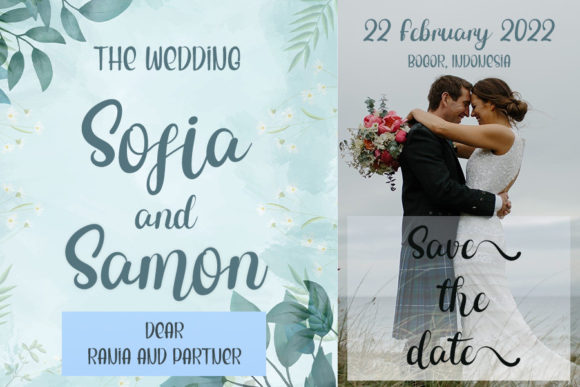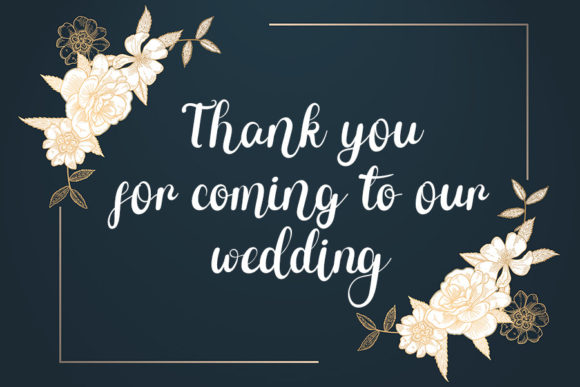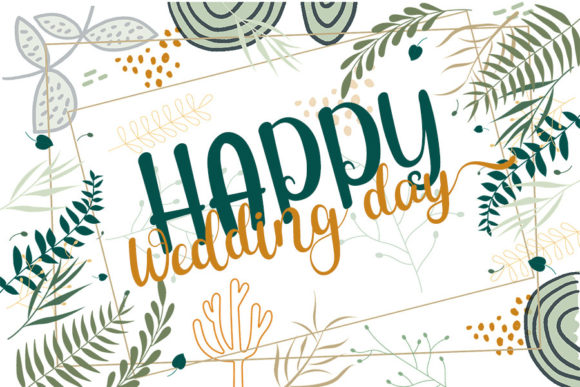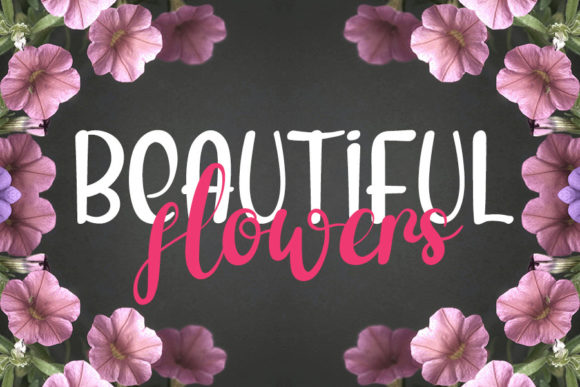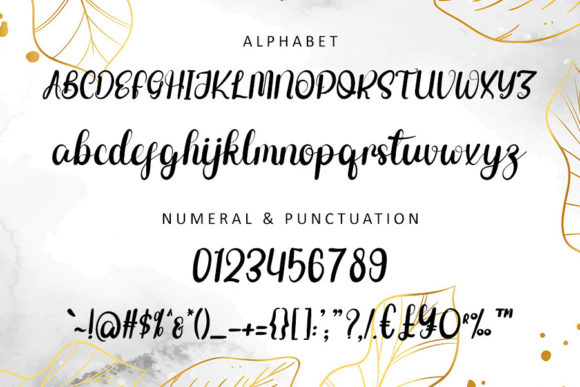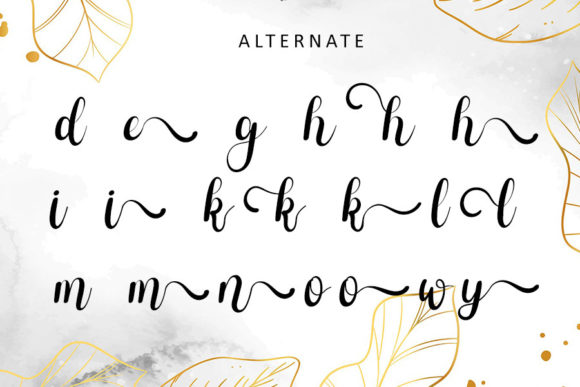
Cookies Handmade Font: Elevate Your Designs with a Touch of Timeless Elegance
In the world of typography, few fonts manage to capture the essence of classic calligraphy while still exuding a contemporary vibe. Cookies Handmade Font is one such gem that has been making waves in the design community. This stylish handwritten font is not just a typeface; it’s an experience that brings a touch of timeless elegance to your projects. In this article, we’ll dive deep into what makes Cookies Handmade Font a must-have for designers and crafters alike.
The Inspiration Behind Cookies Handmade Font
Cookies Handmade Font draws its inspiration from the timeless classics of calligraphy, yet it presents itself with a modern twist. This font is the brainchild of meticulous design and a passion for creating typefaces that speak to both the heart and the eye. The designer aimed to craft a font that embodies a contemporary atmosphere without losing the charm of traditional calligraphy. The result is a font that feels both fresh and nostalgic.
Key Features of Cookies Handmade Font
- Contemporary yet Classic: Cookies Handmade Font strikes the perfect balance between modern design and classic calligraphy. This makes it versatile for a wide range of projects, from wedding invitations to brand logos.
- Balanced and Varied: One of the standout features of this font is its balance and variation. Each letter is carefully crafted to ensure that the font flows smoothly, making it a joy to read and write.
- Impeccable Form: The font boasts impeccable form, ensuring that it looks great in both print and digital formats. Whether you’re working on a business card or a website header, Cookies Handmade Font maintains its elegance.
- Handwritten with Love: The essence of being handmade is captured in the subtle imperfections and the personal touch infused into each character. This gives the font a warm, inviting feel that’s hard to replicate with machine-generated typefaces.
Uses of Cookies Handmade Font
The versatility of Cookies Handmade Font makes it suitable for a myriad of design projects. Here are a few ideas to get you started:
- Wedding and Event Stationery: Add a touch of elegance to your wedding invitations, thank you cards, and event programs.
- Branding and Logos: Create a memorable brand identity with a logo that exudes sophistication and charm.
- Packaging: Elevate your product packaging with a font that communicates luxury and attention to detail.
- Digital Content: Use Cookies Handmade Font in your website headers, social media graphics, and email newsletters to stand out.
Tips for Using Cookies Handmade Font Effectively
To make the most of Cookies Handmade Font, consider the following tips:
- Pair it Wisely: Combine Cookies Handmade Font with complementary fonts to create visual interest. A sans-serif font for body text can create a nice contrast.
- Play with Sizes: Experiment with different font sizes to emphasize certain parts of your text. This can be particularly effective in headings and subheadings.
- Adjust the Color: While the font itself is elegant, the right color can enhance its beauty. Consider soft pastels for a vintage look or bold colors for a modern vibe.
Cookies Handmade Font is more than just a typeface; it’s a design element that can transform your projects with its timeless elegance and contemporary flair. Whether you’re a professional designer or a crafter with a passion for typography, this font offers a world of creative possibilities. With its balanced and varied design, impeccable form, and the personal touch of handmade craftsmanship, Cookies Handmade Font is sure to become a favorite in your design arsenal. So, why wait? Dive into the world of Cookies Handmade Font and let your designs speak with the elegance and charm they deserve.